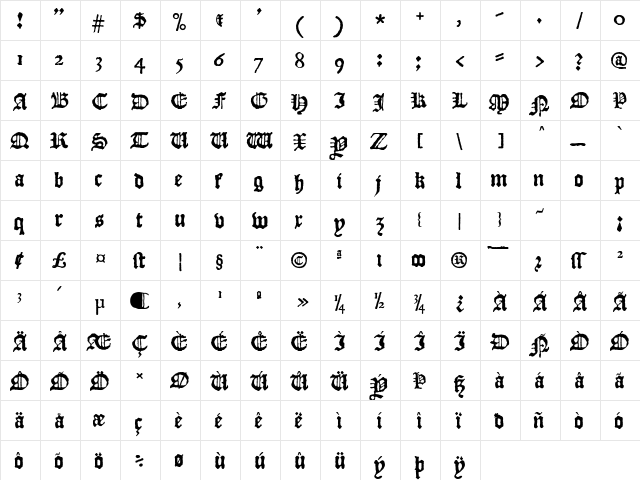
JSL Blackletter Antique Regular
Design Context for JSL Blackletter Antique Typeface
JSL Blackletter Antique draws on the rich tradition of blackletter calligraphy, with dense, angular strokes that evoke medieval manuscripts and old-world craftsmanship.
A natural fit for music packaging, gothic editorial design, and any project that needs historical weight.
Font Pairing: Pair with a clean neutral sans-serif for body copy to let JSL Blackletter Antique's character lead without overwhelming the composition.
Pro Tip: Reserve JSL Blackletter Antique for display and logo use — pair it with a clean sans-serif for body copy to prevent the composition from feeling oppressive.